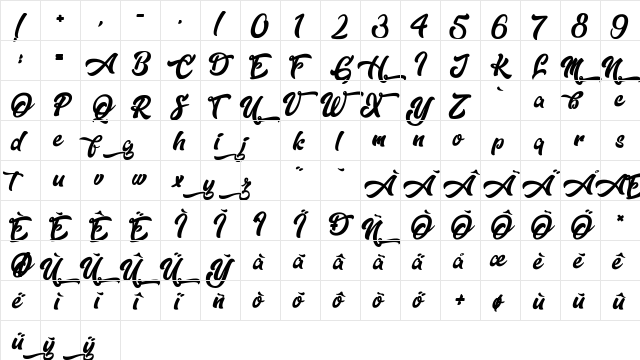
Dopestyle Regular
| Foundry | Octotype |
| Designer | Octotype |
Design Context for Dopestyle Typeface
Dopestyle is a composed and adaptable typeface that performs quietly and consistently across a wide range of design contexts.